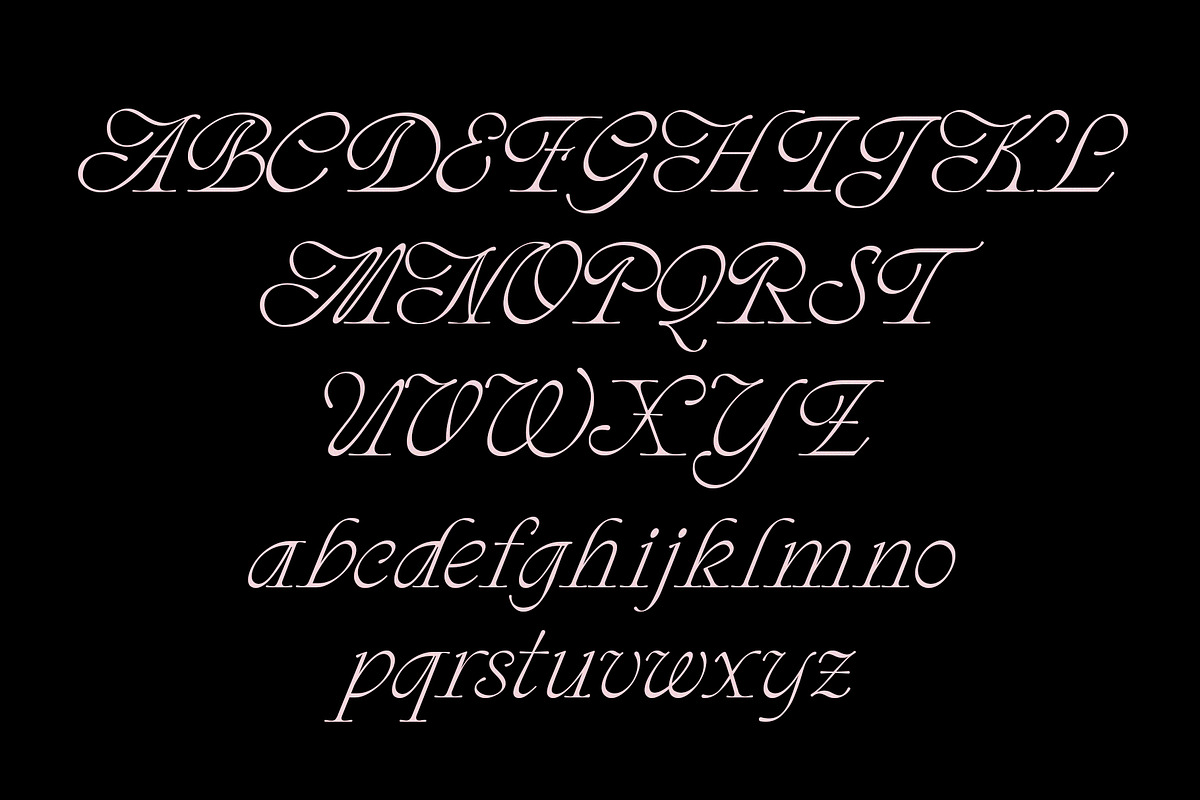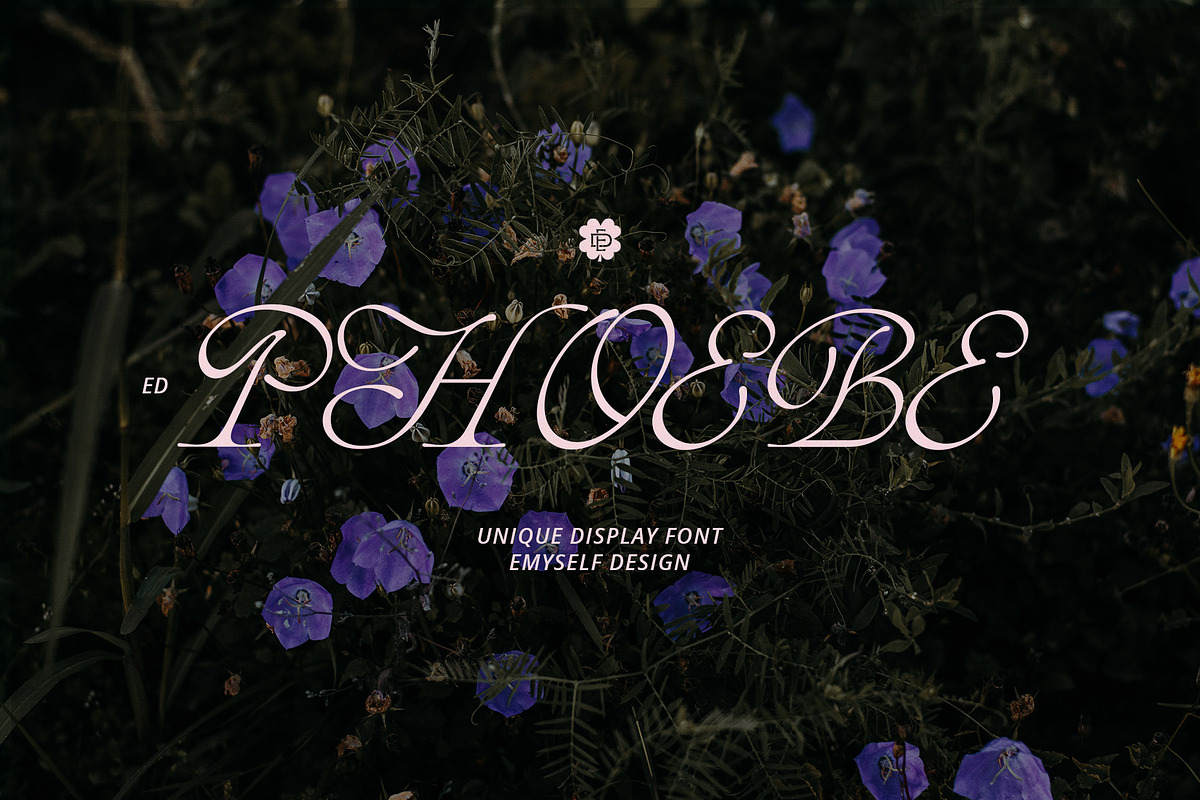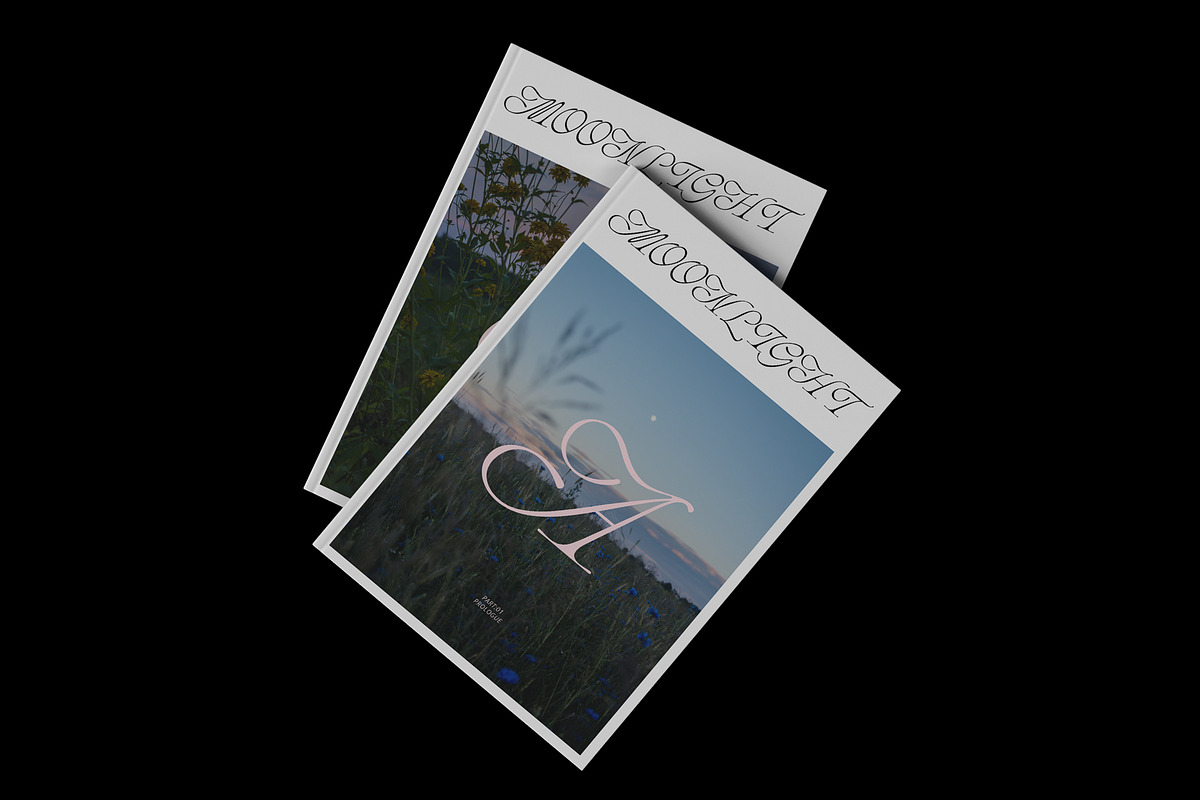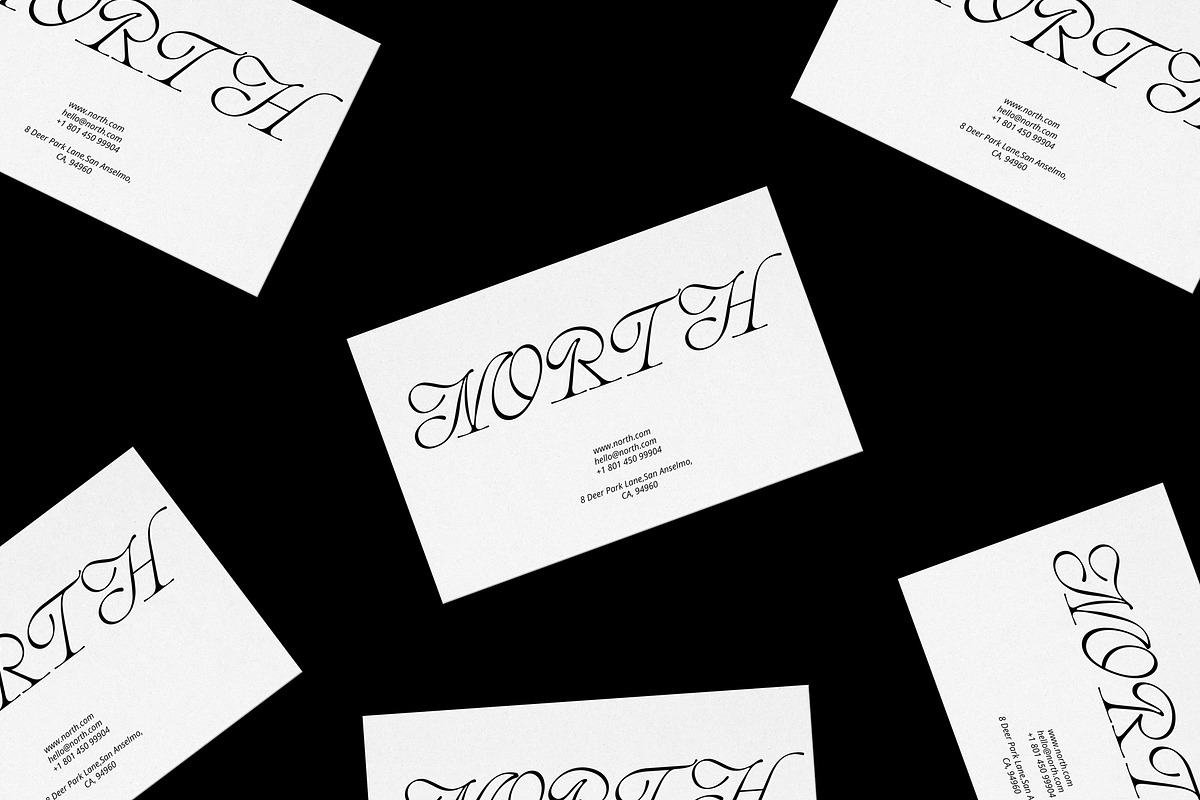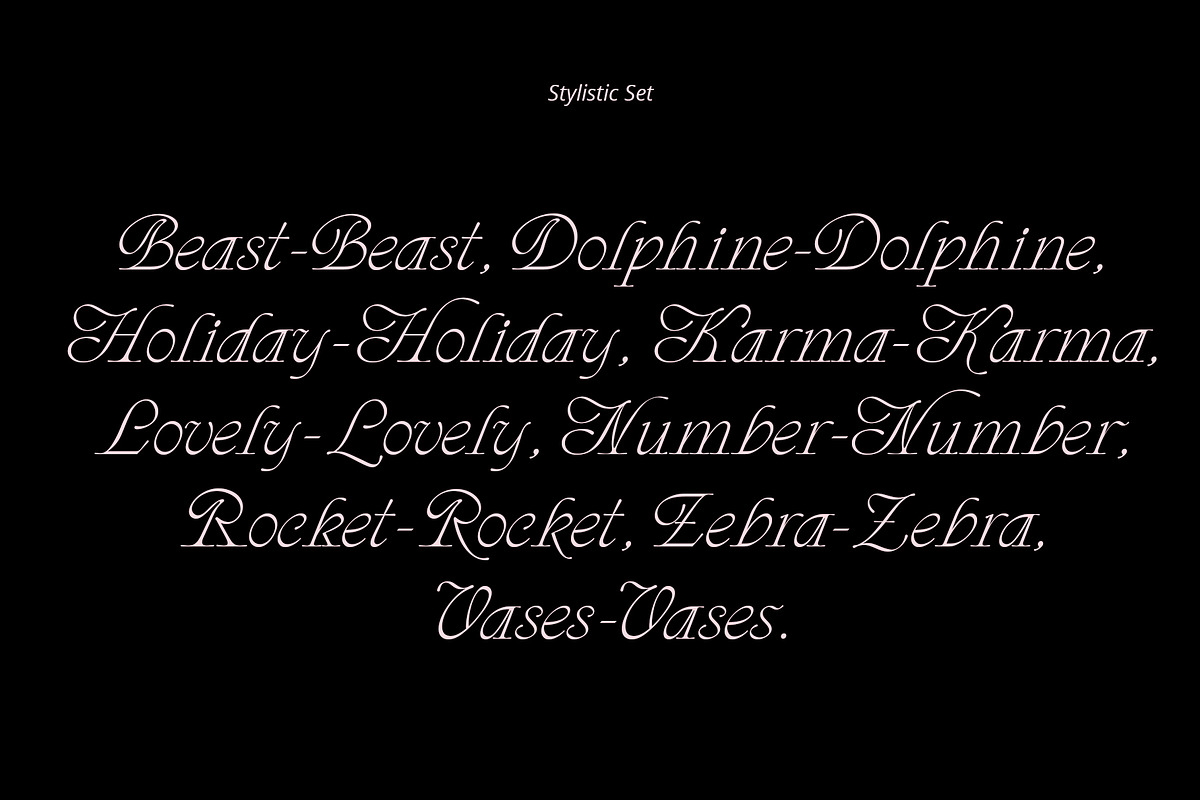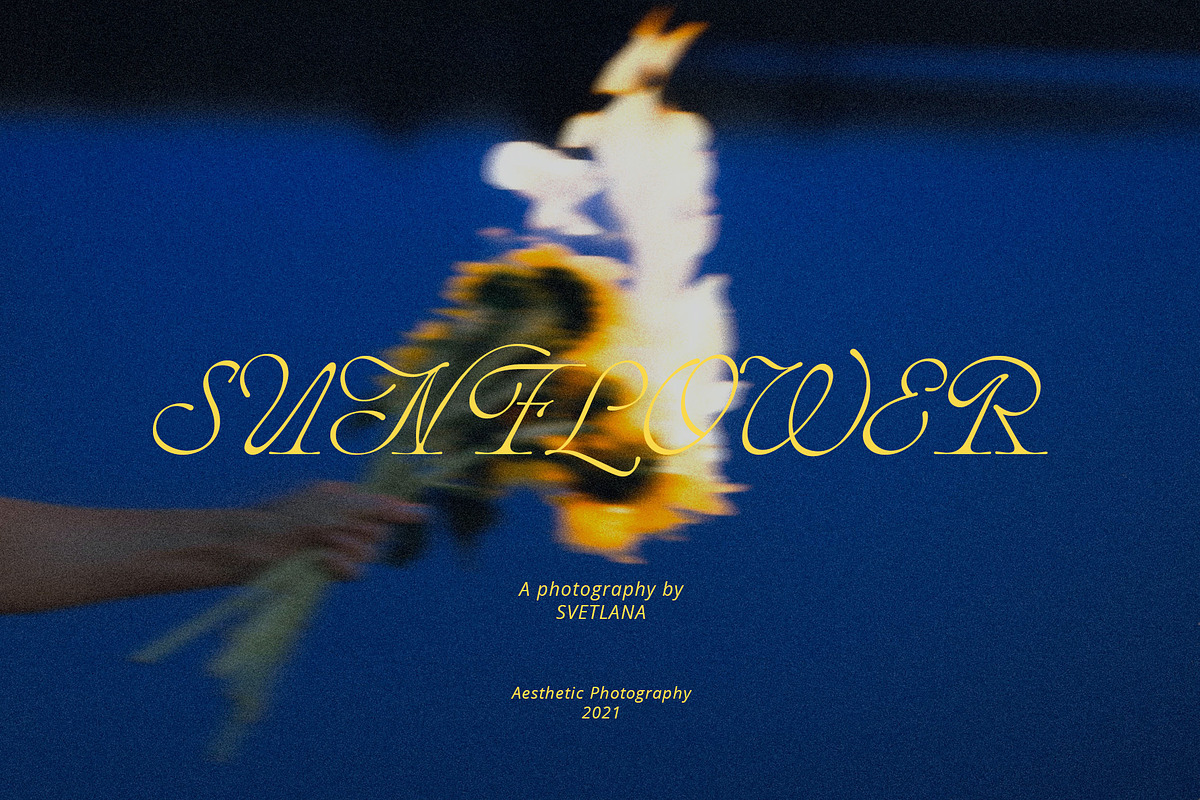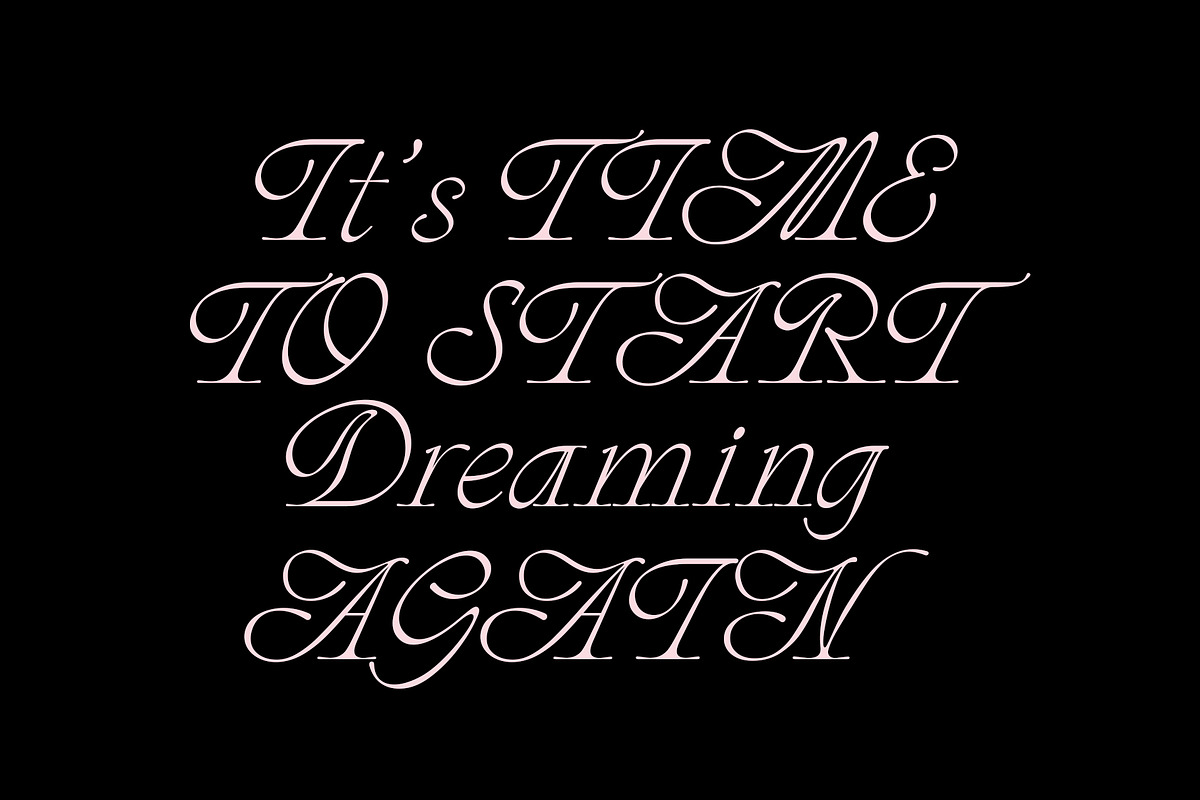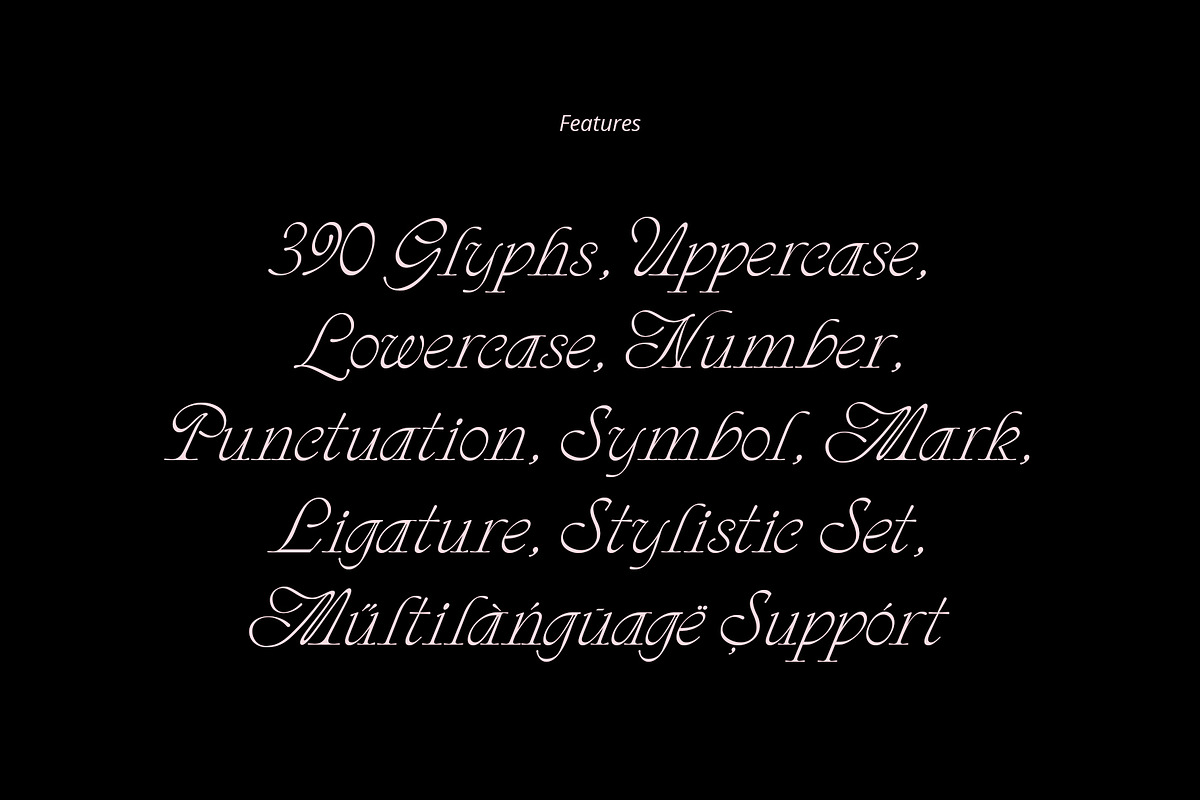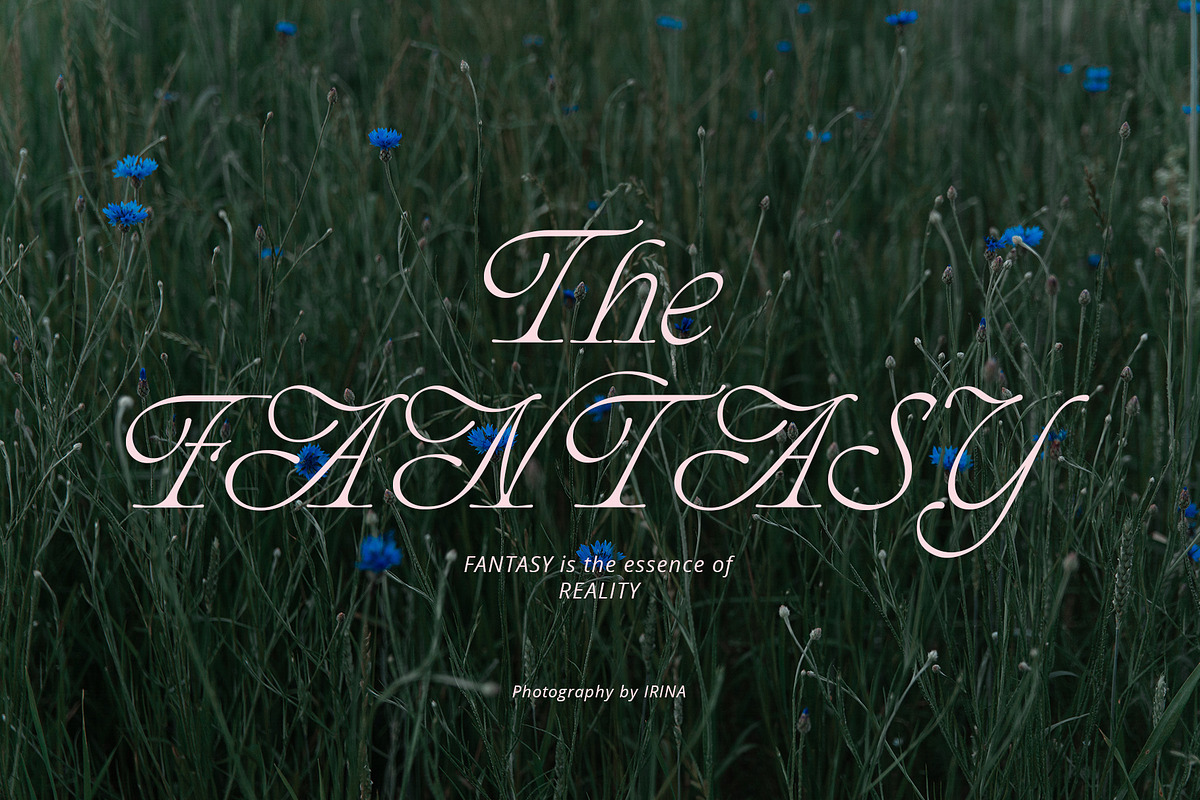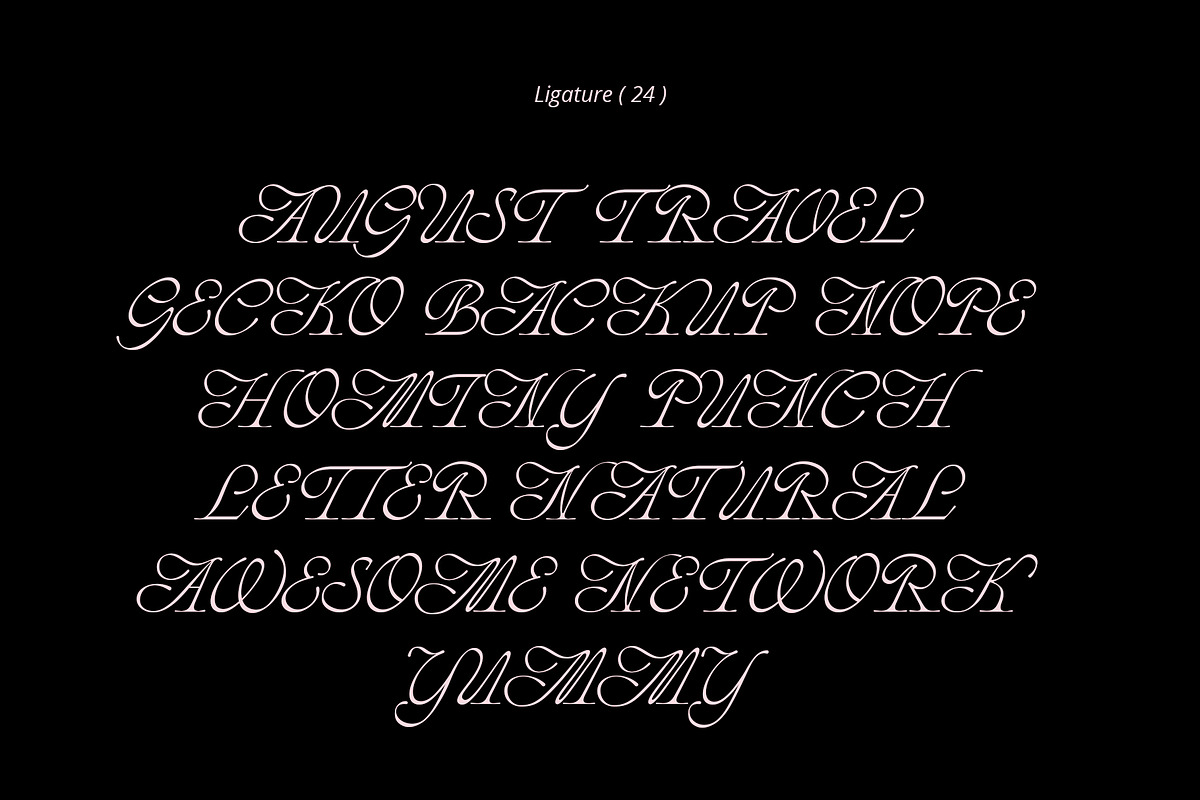
ED Phoebe
Phoebe is an elegant classic serif italic style, this font is a development of the previous font "Sonar" which adds a soft edge style and a modern touch. This font is complete with stylistic sets, Ligatures and also multi-language support which adds to the aesthetic that makes your work more interesting.
This font is perfect for your creative projects such as Logotype, printed quotes, invitations, cards, product packaging, headers, Letterhead, Apparel , Web design, Magazine, Book, etc.
- Total Glyph : 390
- Punctuation and Marks
- stylistic set & Ligatures